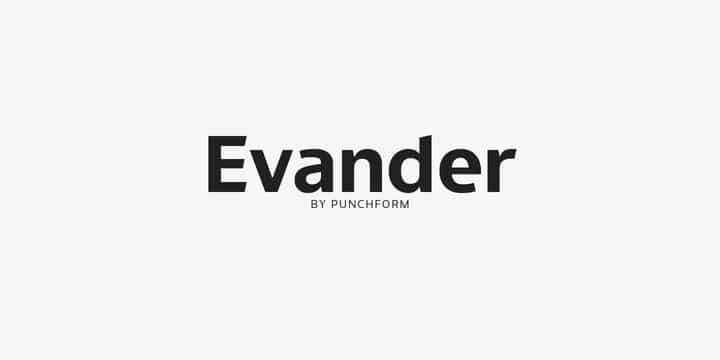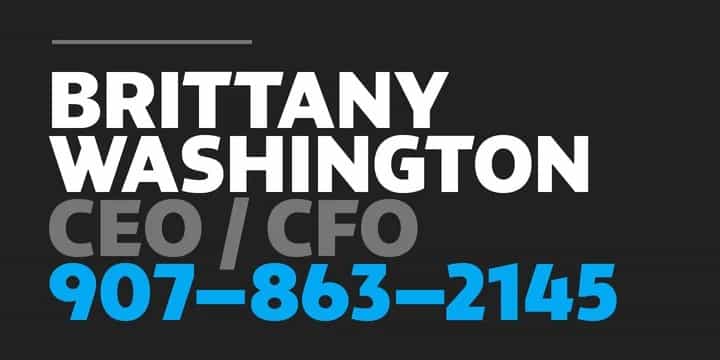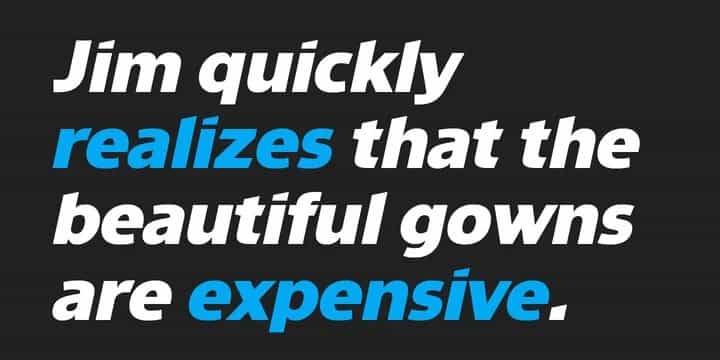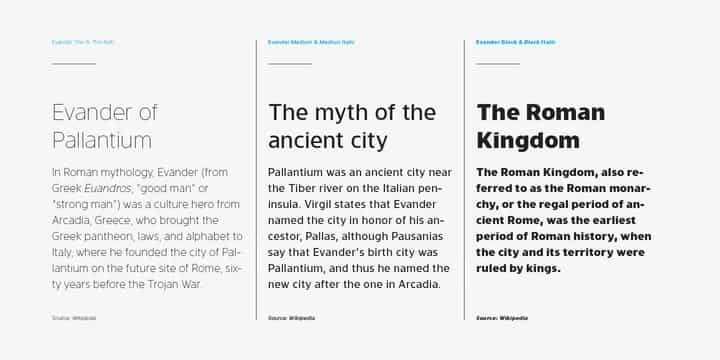
Evander is a new and minimalist font that is based on industrial and technical designs of fonts. Designed and distributed by Sartstudio; developed as humanist sans-serif typeface by Mihai Sorin and was released by Punchform in the year 2020.